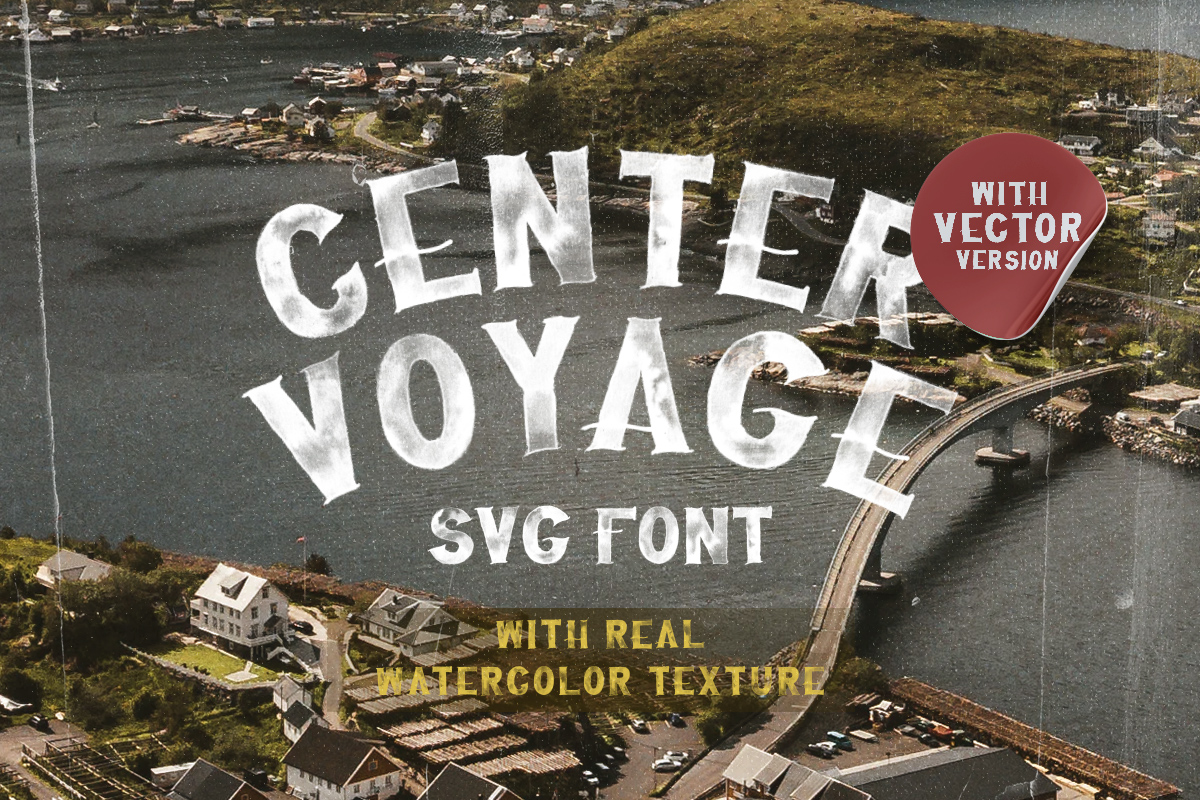
Center Voyage Font
Center Voyage Font is widely used in travel agency branding, cruise line marketing, adventure tourism posters, nautical-themed designs, exploration documentaries, maritime museum displays, world atlas publications, and wanderlust lifestyle communications.
Center Voyage Font is an exciting typeface that navigates between adventure and sophistication with its exploratory character and wanderlust appeal. This font embodies discovery, global exploration, and journey excitement, making it perfect for brands that want to convey adventure spirit, cultural curiosity, and transformative travel experiences in their inspiring visual communications.
The Center Voyage Font family includes Regular, Bold, Light, Italic, Explorer, Journey, Condensed, and Adventure variants. This exploratory collection enables designers to create inspiring typographic experiences that maintain travel consistency while offering adventurous flexibility for various tourism and exploration applications.
Center Voyage Font Free Download provides exceptional travel authenticity for designers working with tourism and adventure brands. The font's exploratory character and journey-inspired styling create an immediate sense of wanderlust and cultural discovery. This typeface excels in projects where adventure, exploration, and transformative experiences must inspire audiences to embrace new destinations and meaningful travel opportunities.
The distinctive wanderlust of Center Voyage Font lies in its ability to capture the excitement of global exploration and the transformative power of travel through carefully crafted letterforms that seem to chart new territories. Each character maintains the balanced proportions and adventurous spirit that reflects the courage and curiosity essential to meaningful travel experiences. The font's confident presence and exploratory character create visual journey that captures the essence of discovery and cultural exchange.
Travel companies and adventure brands choose Center Voyage Font for its power to communicate authentic exploration and transformative experiences. The typeface works magnificently in travel agency communications, adventure tour marketing, cultural exchange programs, and exploration equipment branding. Its adventurous aesthetic appeals to travelers who appreciate authentic cultural experiences, meaningful exploration, and the personal growth that comes from discovering new worlds.
The exploratory craftsmanship of Center Voyage Font includes journey-inspired variations and adventurous textures that enhance the natural excitement of travel typography while maintaining the exploratory character essential to tourism communication. These inspiring features ensure that text maintains the adventurous spirit and cultural curiosity that defines authentic travel branding while meeting professional standards for commercial applications in the tourism, adventure, and cultural exchange industries.